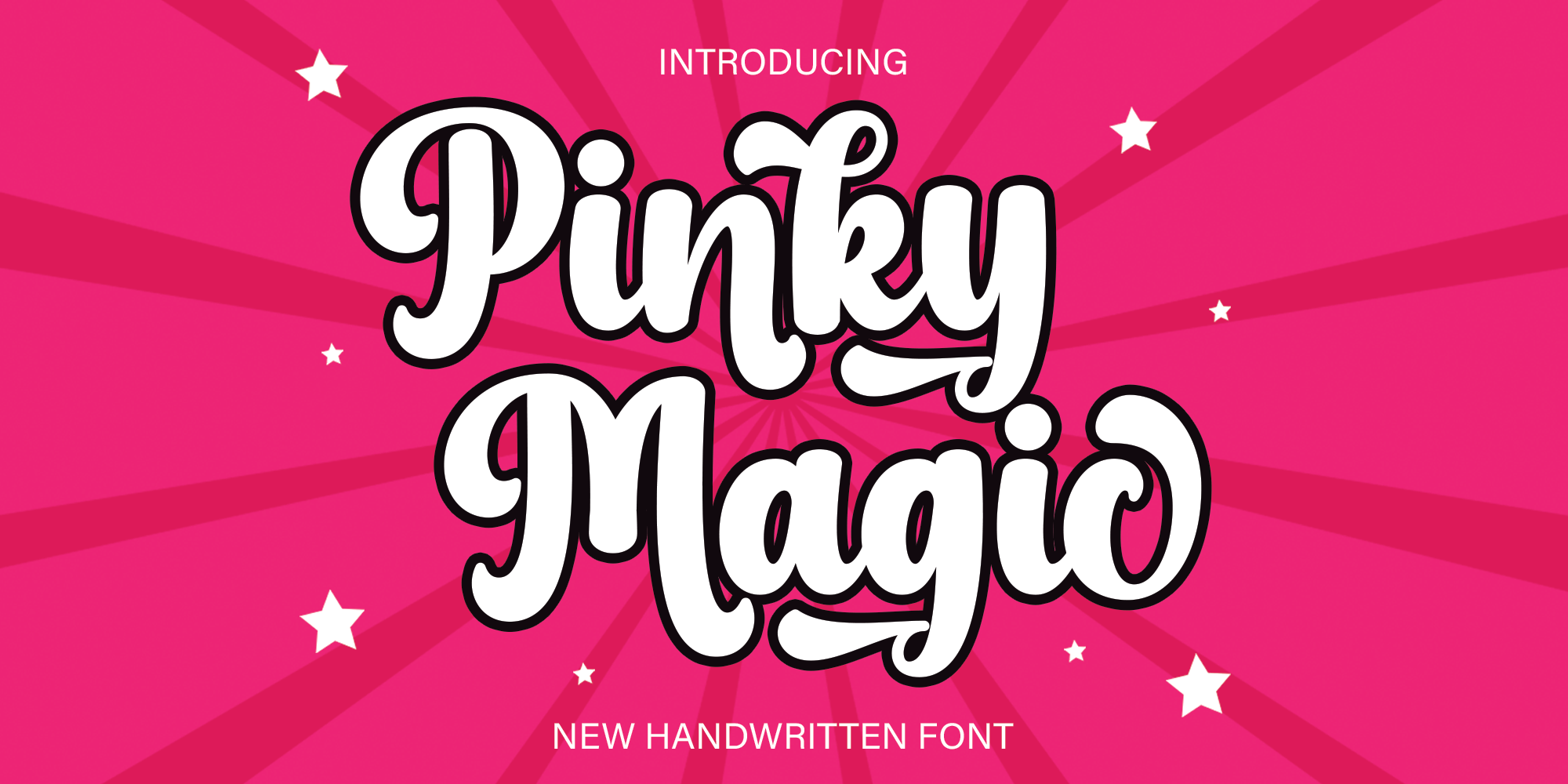
Pinky Magic Font is a whimsical and enchanting typeface, perfectly suited for projects that aim to capture a sense of wonder, playfulness, and delicate charm. Imagine it bringing a fairytale touch to children's book titles, adding a sweet and dreamy feel to stationery for a boutique, or creating captivating social media graphics for a beauty brand. It's also an excellent choice for crafting delightful greeting cards, designing unique party invitations, or infusing blog headers with a magical and inviting personality. If you're seeking to imbue your designs with softness, imagination, and an undeniable sprinkle of joy, Pinky Magic Font is an absolutely magical selection.
What makes Pinky Magic Font so exciting? It’s its unique blend of handcrafted charm and subtle elegance, which allows it to feel both personal and universally appealing. This font features gentle curves, playful flourishes, and a flowing rhythm that evokes a sense of lightheartedness and fantasy. Despite its decorative nature, Pinky Magic Font maintains a good level of readability, ensuring that your message is conveyed with both clarity and character. Designers will appreciate its ability to transform ordinary text into something truly special, making it ideal for projects that aim to evoke smiles and inspire creativity.
The Pinky Magic Font family typically focuses on a distinctive, artistic style, often presented with a singular, beautifully rendered Regular weight that perfectly encapsulates its unique charm. While it may not feature extensive weight variations like a traditional text font, its strength lies in its inherent decorative qualities and potential for stylistic alternates or ligatures that enhance its whimsical aesthetic. These features allow Pinky Magic Font to maintain its cohesive and enchanting look across various applications, from enchanting product packaging to delightful digital art. Discover the captivating allure of Pinky Magic Font Free Download and infuse your designs with an unforgettable touch of magic.